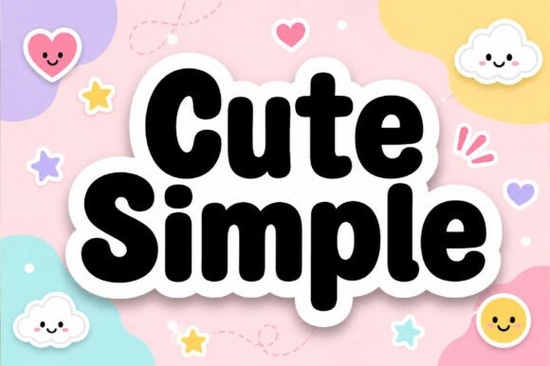
If you've been searching for a rounded display font that feels approachable, fun, and easy to read at any size, Cute Simple might be exactly what your next project needs. It's a heavy-weight, bubbly typeface with softened corners and a clean geometric shape that works beautifully for everything from kids' apparel to sticker sheets. The letterforms are bold and chunky without feeling clunky, which gives your headlines a friendly, warm personality right out of the box.
What makes this font feel so friendly?
It comes down to the details. Every letter in Cute Simple has rounded edges and a slightly organic rhythm that keeps the design from feeling too rigid or corporate. The ultra-bold weight gives it strong visual presence on screen and in print, while the softened geometry keeps it approachable. Think of the difference between a sharp-edged corporate typeface and something you'd see on a child's birthday invitation that's the gap this font fills.
For designers who work with children's products, family-oriented branding, or playful packaging, this kind of warmth matters. A font that feels cold or overly technical can undercut the message you're trying to send. Cute Simple solves that by looking handmade without sacrificing clarity.
Where does this font actually work well?
Based on how the letterforms are built wide, bold, and highly legible here are some of the most common use cases:
- Children's book covers and titles the rounded shapes are easy for young readers to recognize
- Nursery wall art and decor prints pairs well with soft pastels and simple illustrations
- Youth apparel and t-shirt designs bold enough to read from a distance on fabric
- Sticker sheets and planner accessories scales well from small to large sizes
- Social media graphics and thumbnails stands out in a busy feed without being aggressive
- Party invitations and greeting cards sets a lighthearted, joyful tone immediately
If you sell on print-on-demand platforms, a font like this can cover a surprising number of niches baby shower themes, teacher resources, pet accessories, and motivational quotes for teens all benefit from that soft, rounded look.
How does it compare to other display fonts?
Cute Simple sits in a specific lane: it's bold and playful, but not cartoonish. If your project leans more sporty or retro, you might want something with sharper angles Varsity Famous works well for that varsity letterman jacket aesthetic. For something with more aggressive energy and angular cuts, Nitro Slash brings a completely different mood.
Tips for pairing and using this font effectively
Because Cute Simple is so bold and attention-grabbing, it works best as a headline or display font rather than body text. Here are a few practical tips:
- Pair it with a clean sans-serif for body copy. Something light and neutral lets the display font do the talking without competing for attention.
- Use generous spacing. Bubbly, rounded fonts like this breathe better with slightly increased letter-spacing, especially at smaller sizes.
- Stick to one or two colors. The font's shape already carries a lot of visual weight, so keeping your palette simple prevents the design from feeling cluttered.
- Test at multiple sizes before finalizing. What looks perfect on a 24-inch poster might need tweaking for a 2-inch sticker.